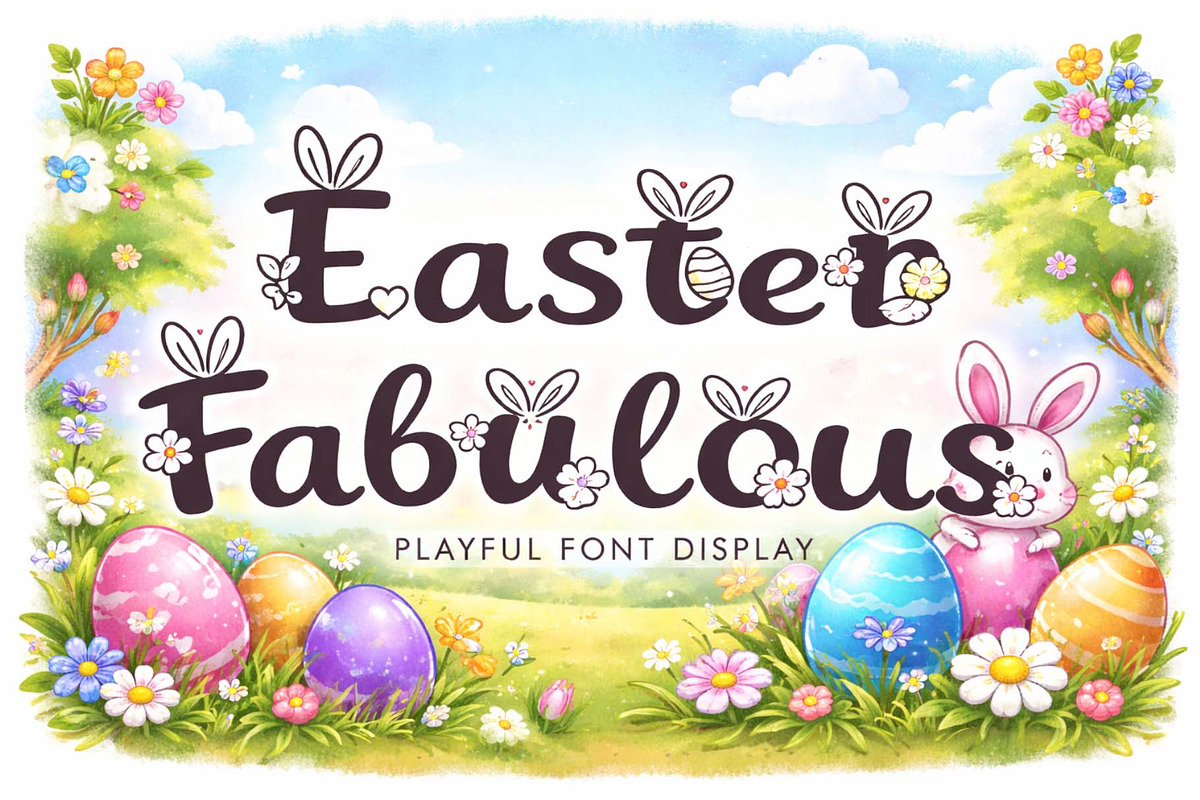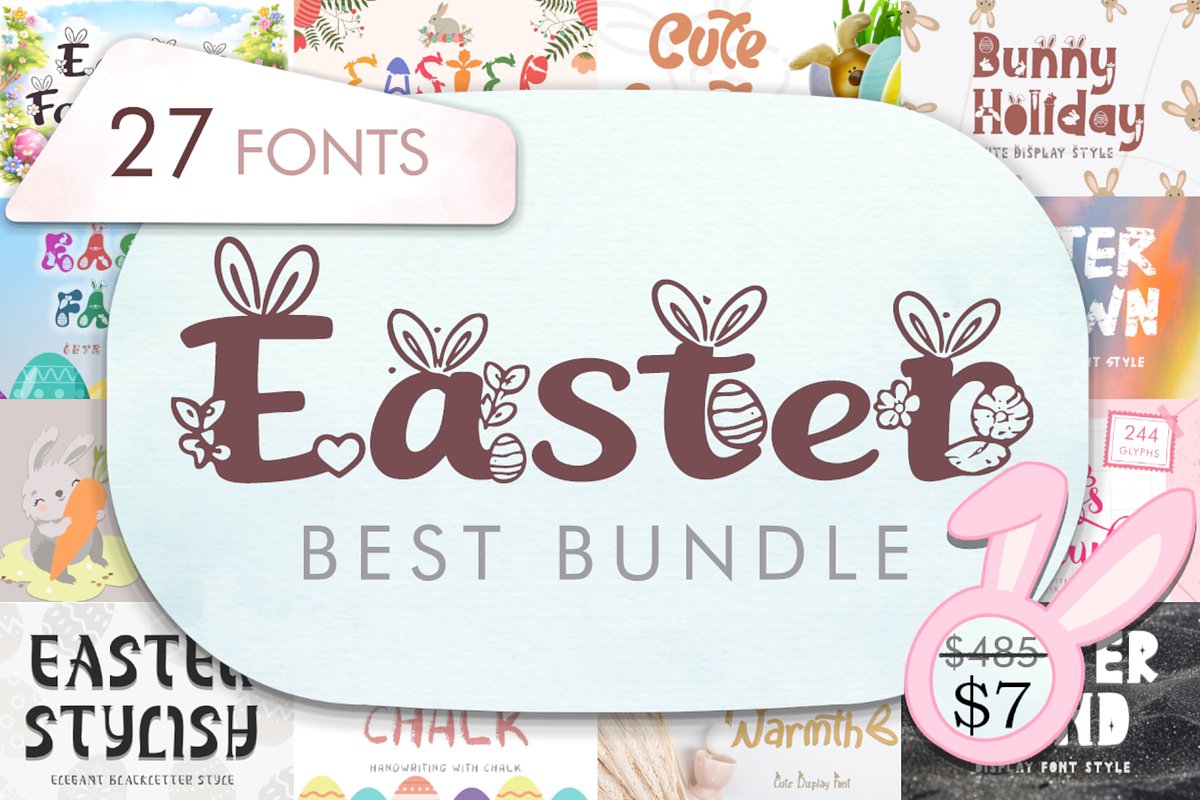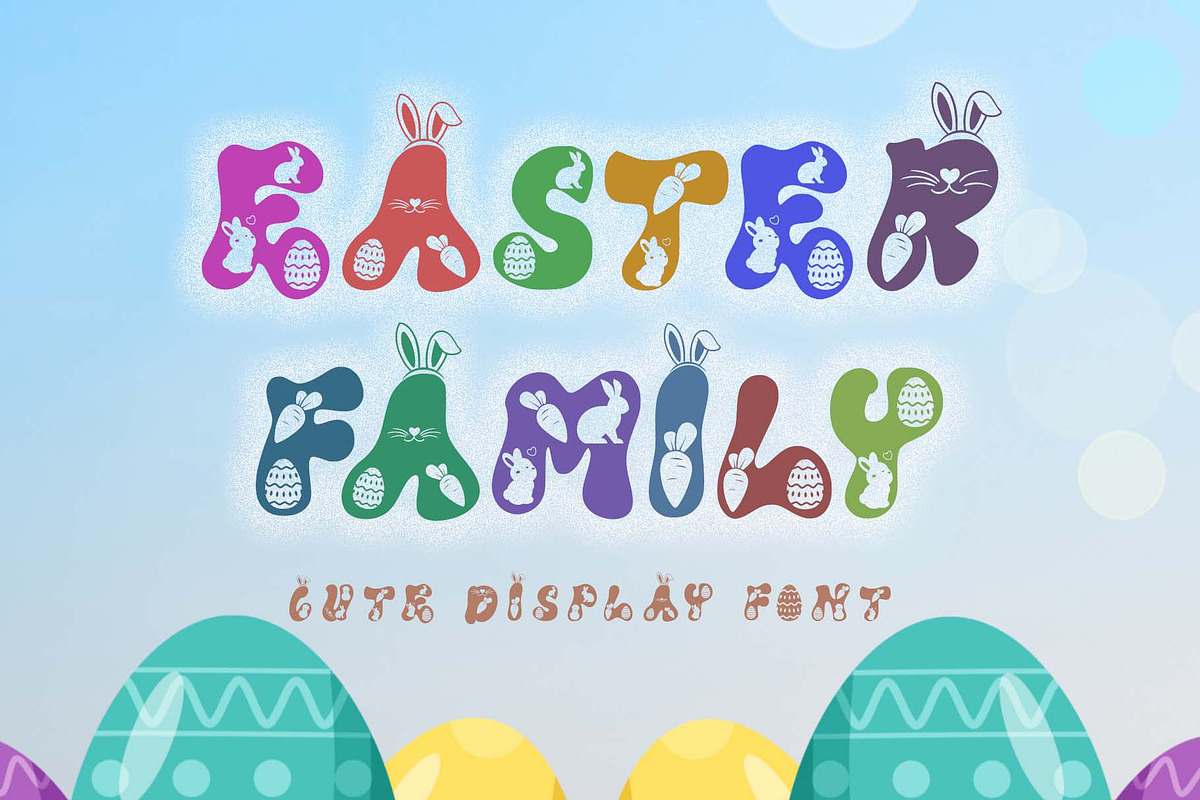
Easter Best Bundle
This bundle contains 27 cute and unique fonts for you to use in your upcoming projects.
This bundle is perfect for a variety of projects, including Easter, comics, magazines, cartoons, Christmas, Valentine's Day, spring, Easter, fall, spring, back to school, weddings, design, branding, logos, invitations, stationery, social media posts, advertisements, product packaging, product design, labels, photography, Mother's Day, Father's Day, watermarks, special events, or anything else. It's highly recommended to use a program that supports OpenType and the Glyphs panel, such as Adobe Illustrator, Adobe Photoshop CC, Adobe InDesign, or CorelDraw, so you can view and access all the glyph variations.